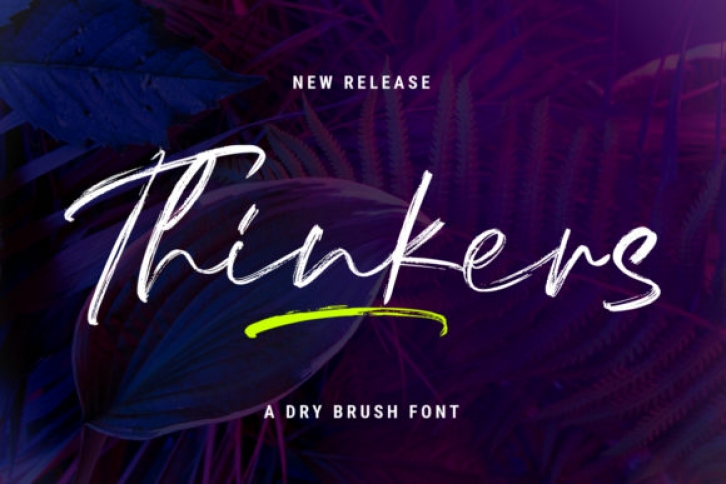
Thinkers is a strong handwritten font with a bold and casual style. This handmade fonts comes with great legibility and readability.
Each stroke is carefully drawn to display great flow and harmony with a natural look.